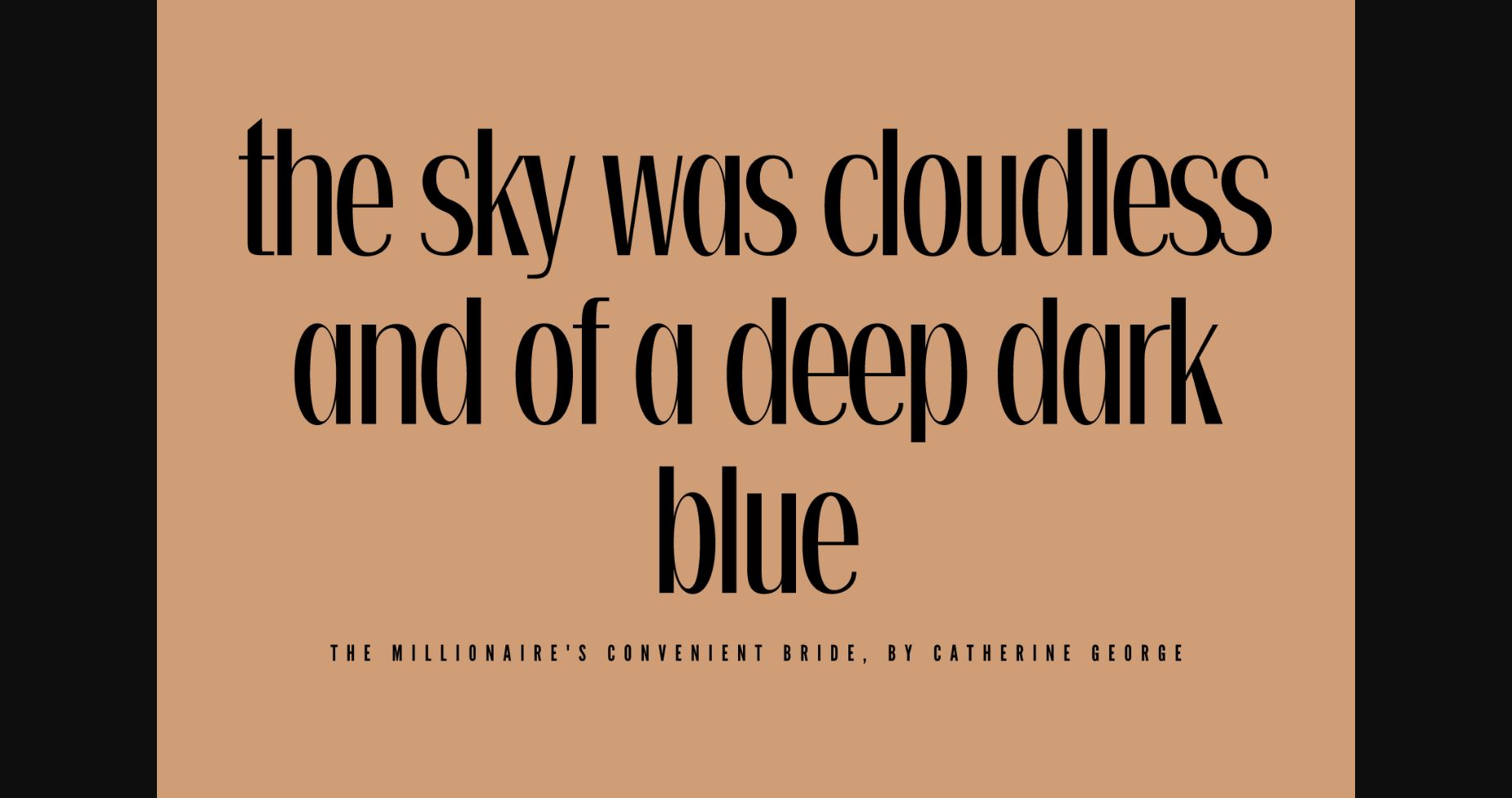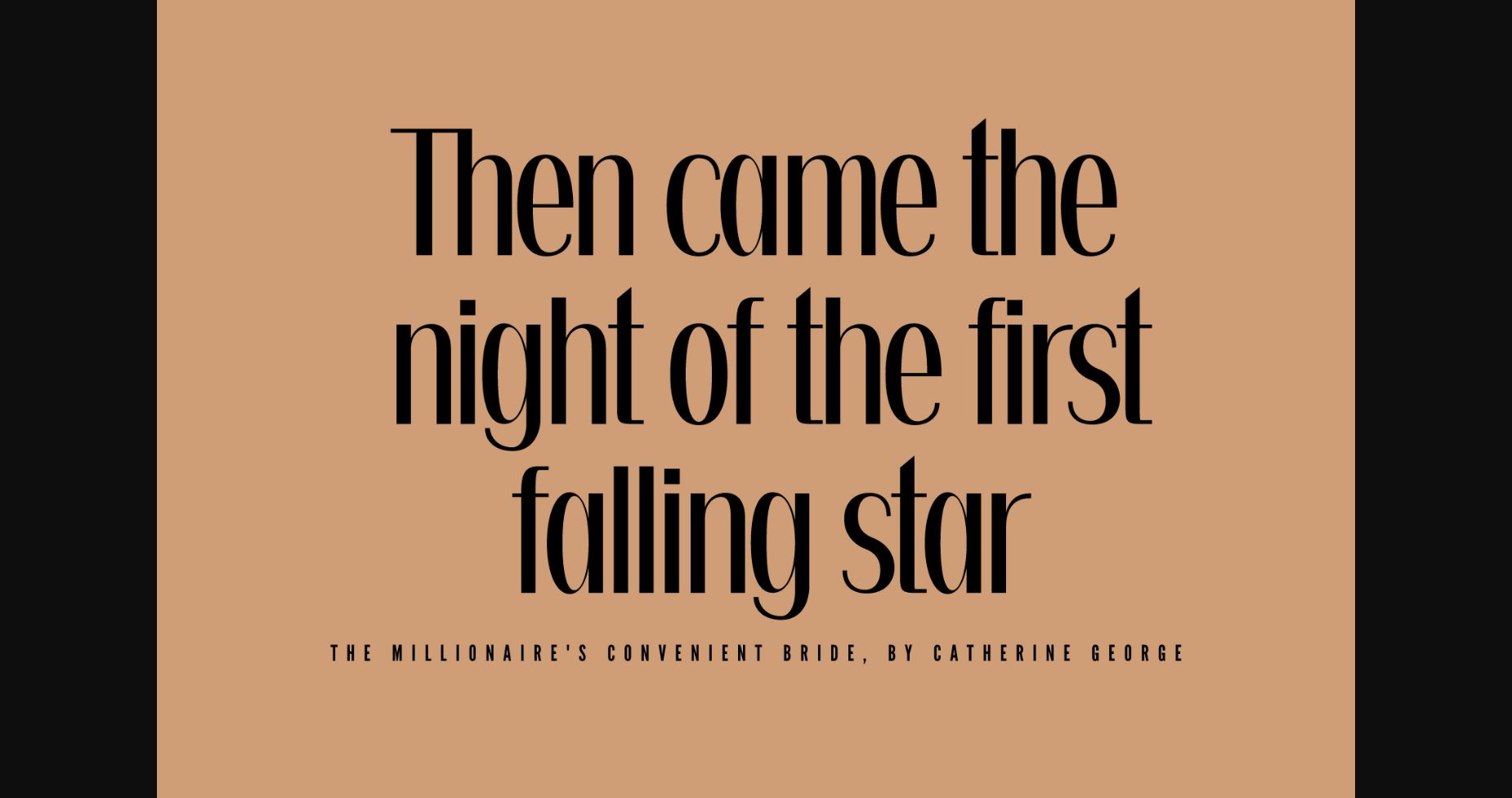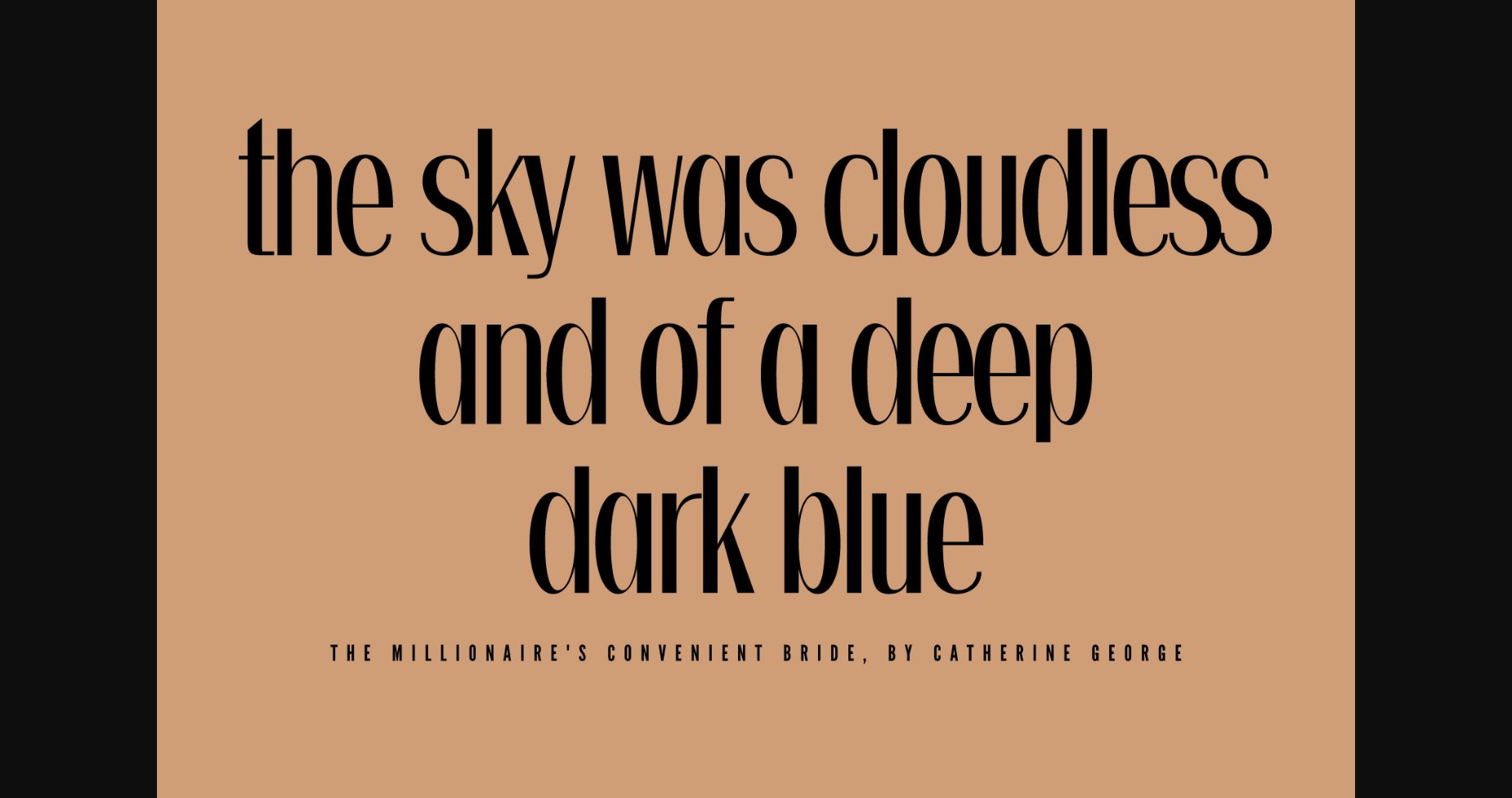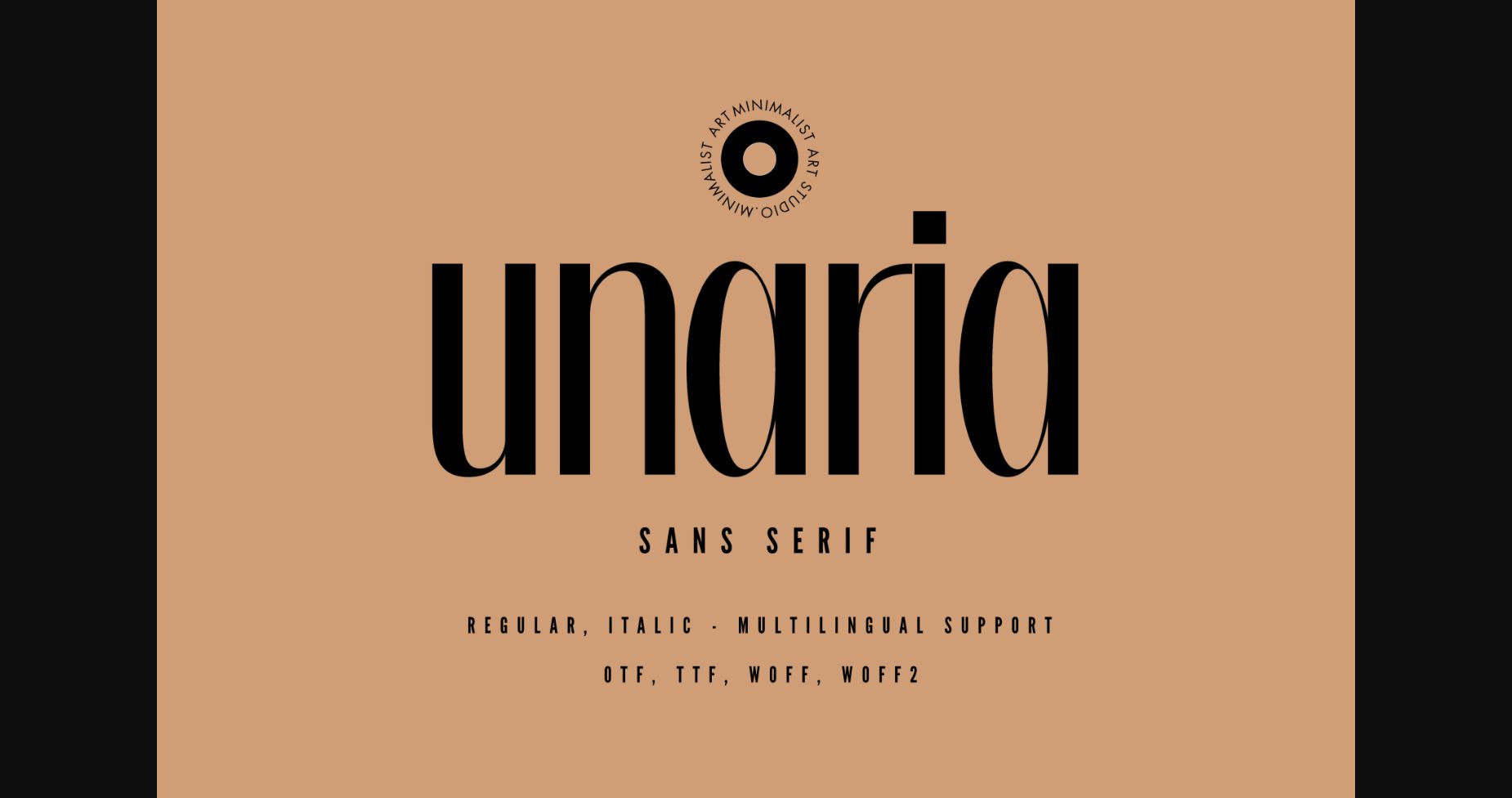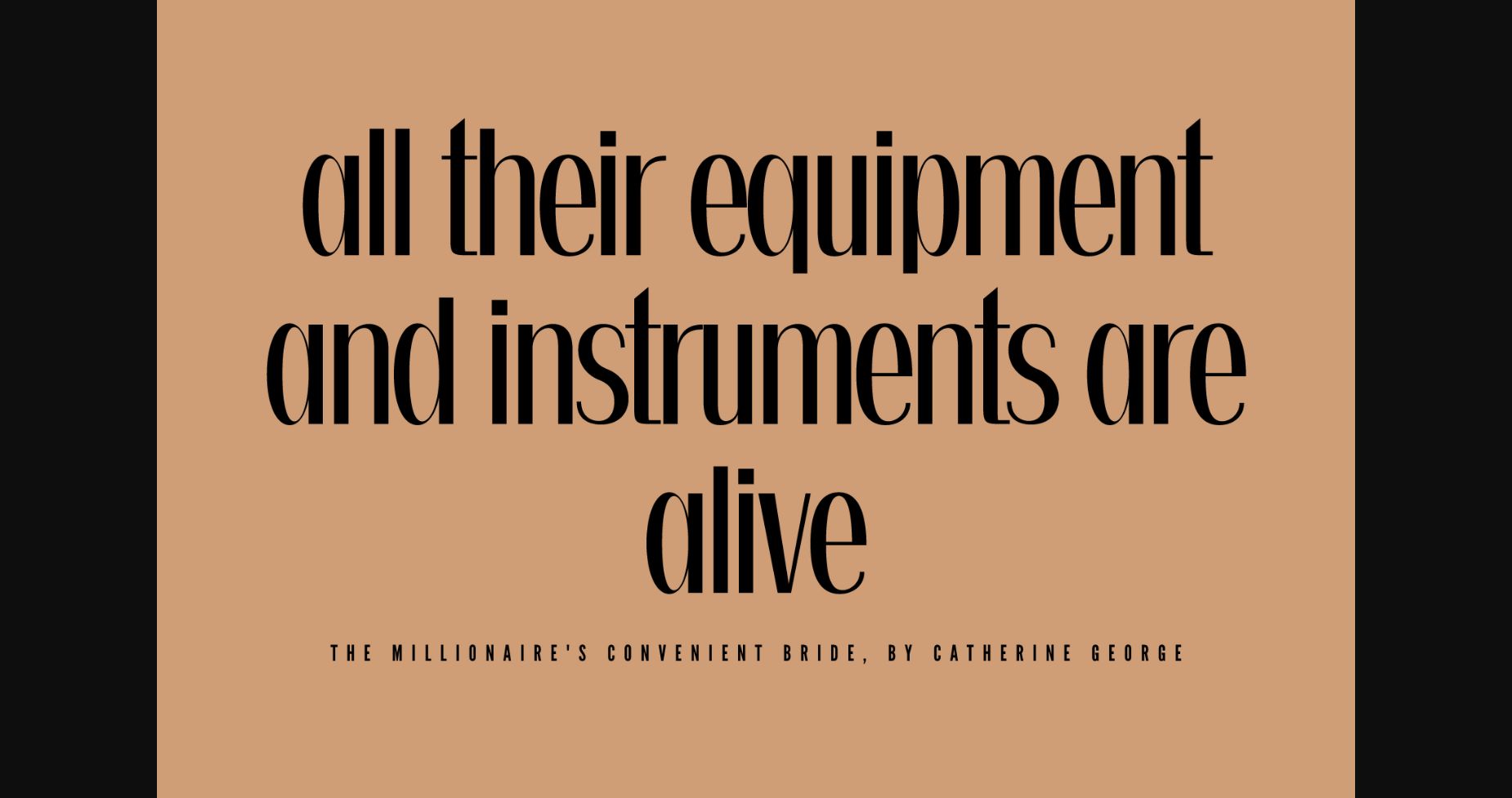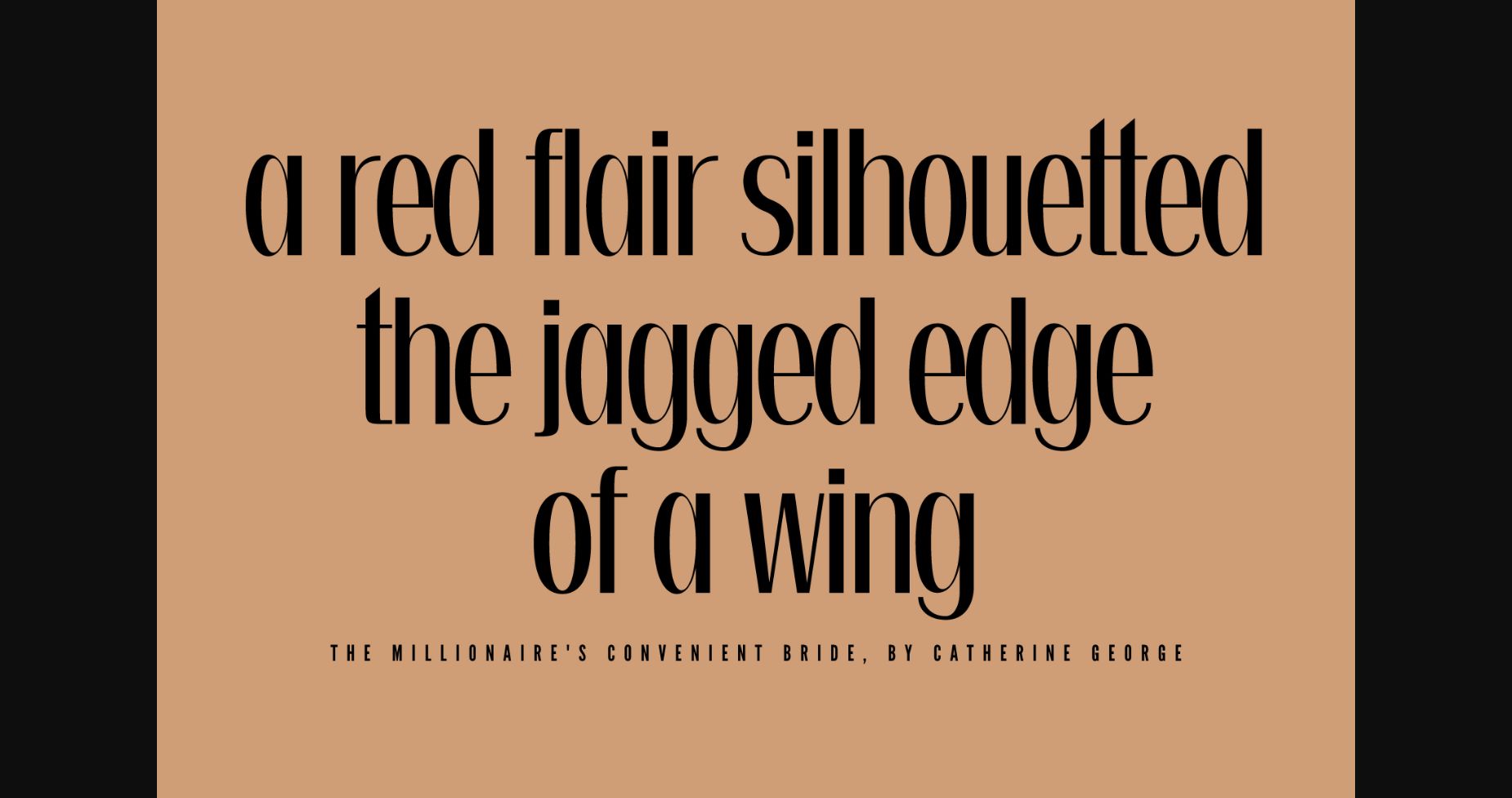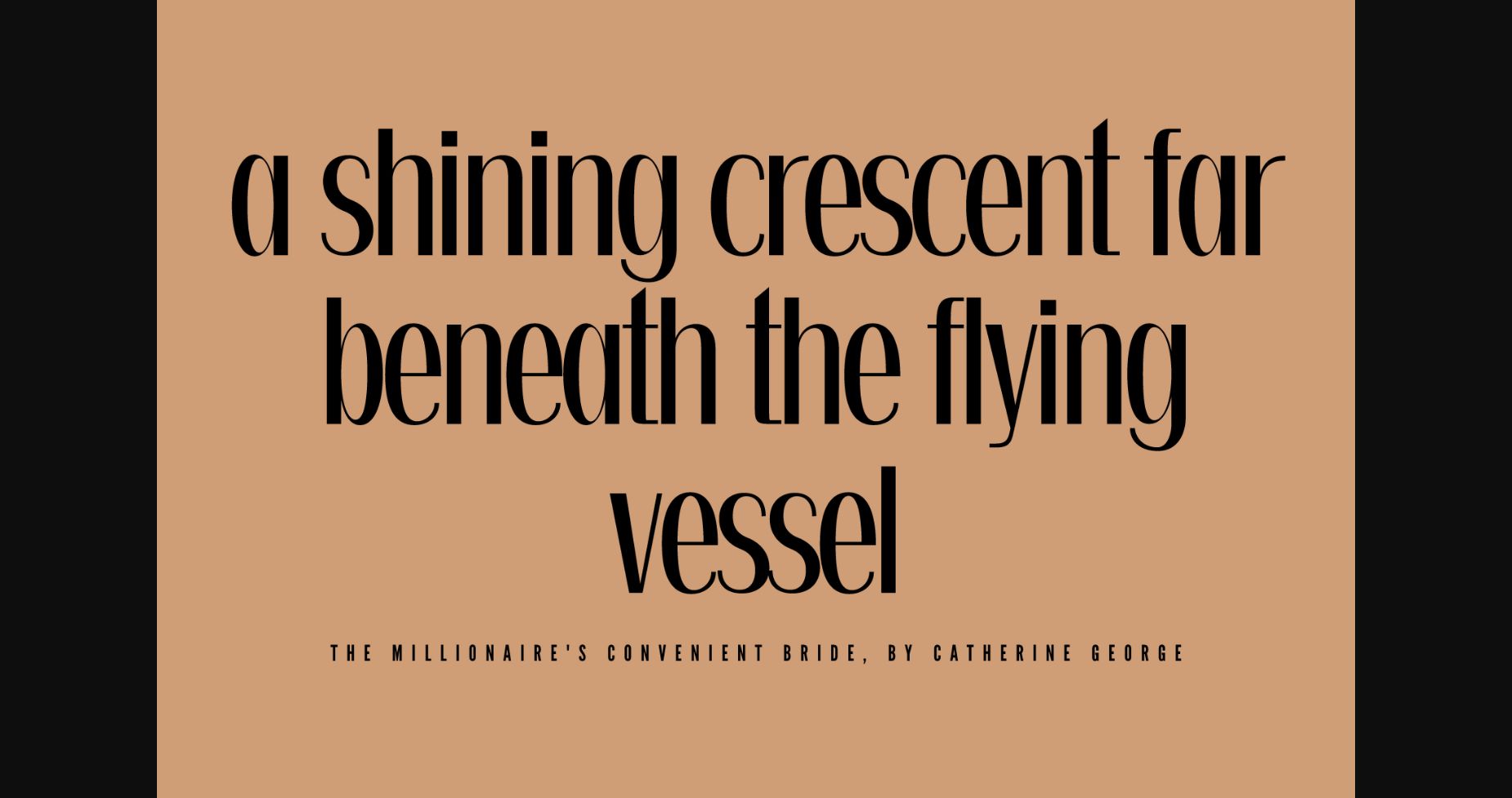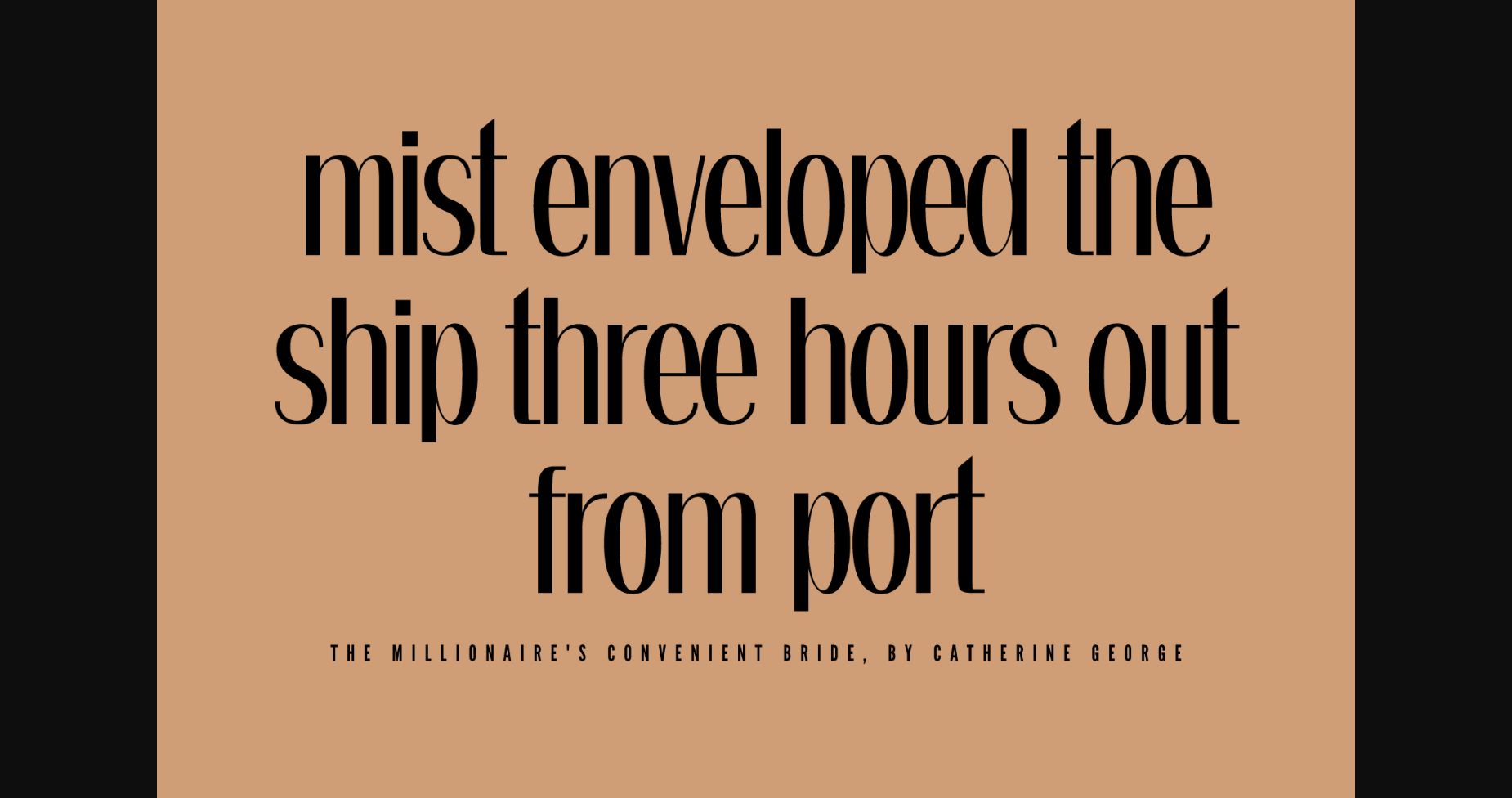
Unaria Font
About Unaria Font
Unaria: Where Minimalism Meets Elegance
Unaria is the epitome of minimalist elegance. This modern sans serif typeface combines clean lines and sleek curves to create a timeless aesthetic.
Its versatility and legibility make it perfect for any project, from branding to web design. With Unaria, your designs will exude sophistication and style. Experience the power of simplicity with Unaria – the ultimate choice for perfection-seeking designers.